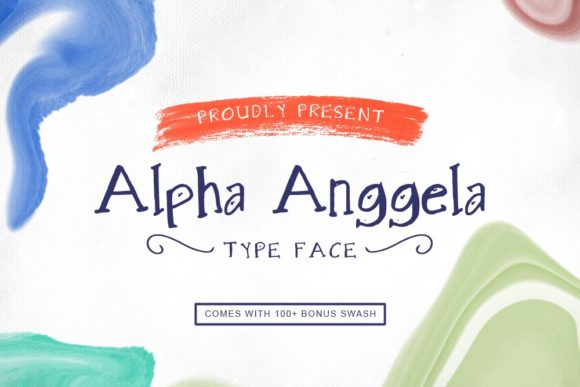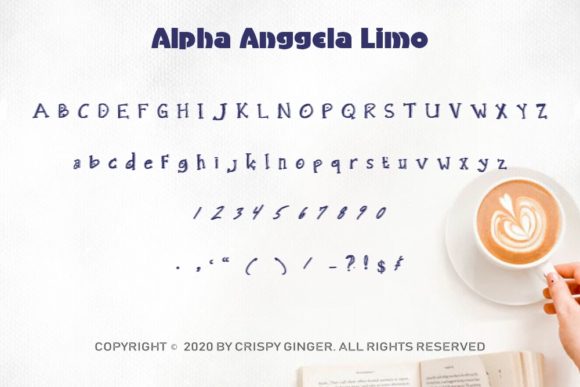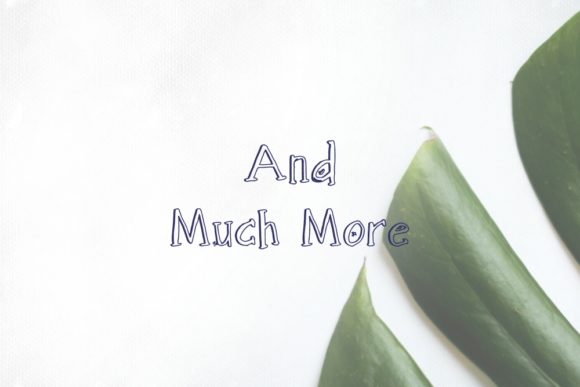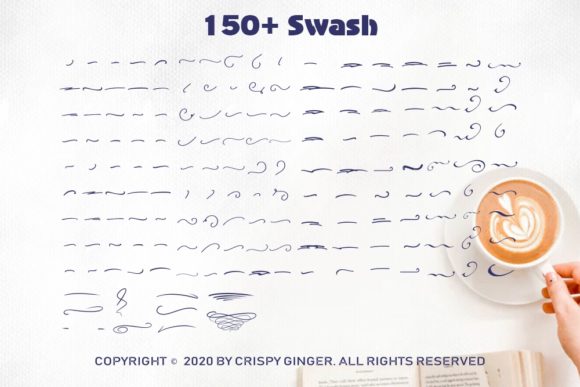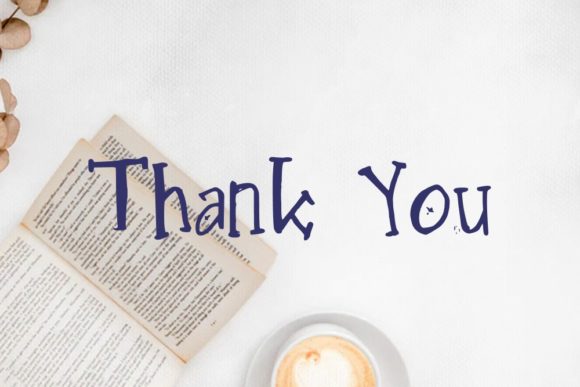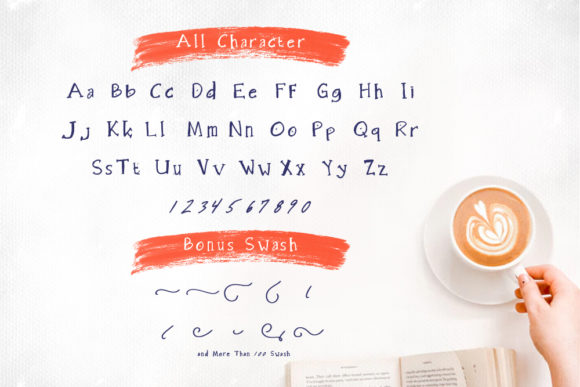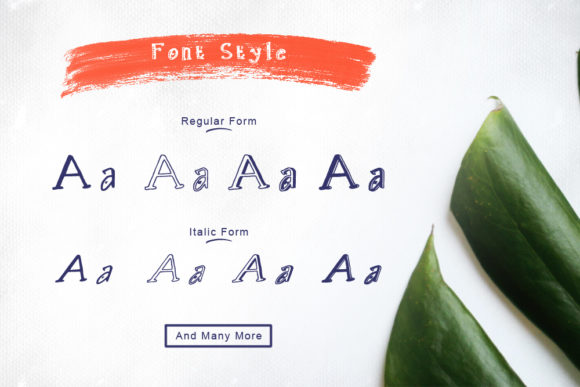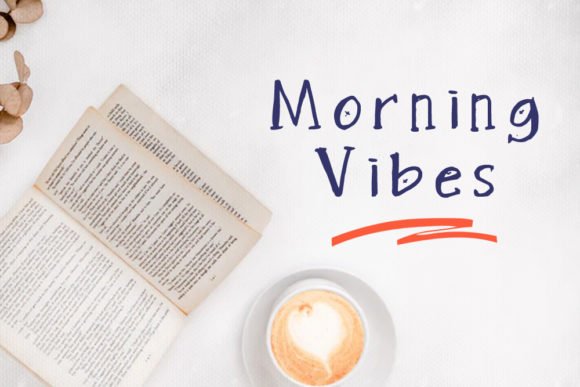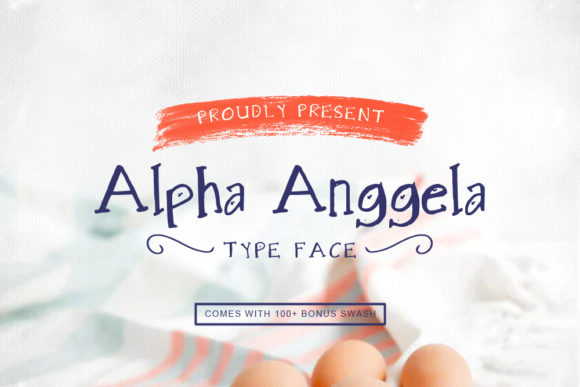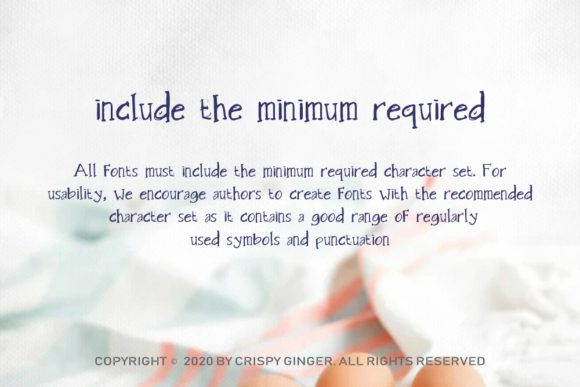
Alpha Anggela Font
About Alpha Anggela Font
Alpha Anggela is a sweet and quirky handwritten font. Its natural and unique style makes it incredibly fitting to a large pool of designs. The only limit is your imagination!